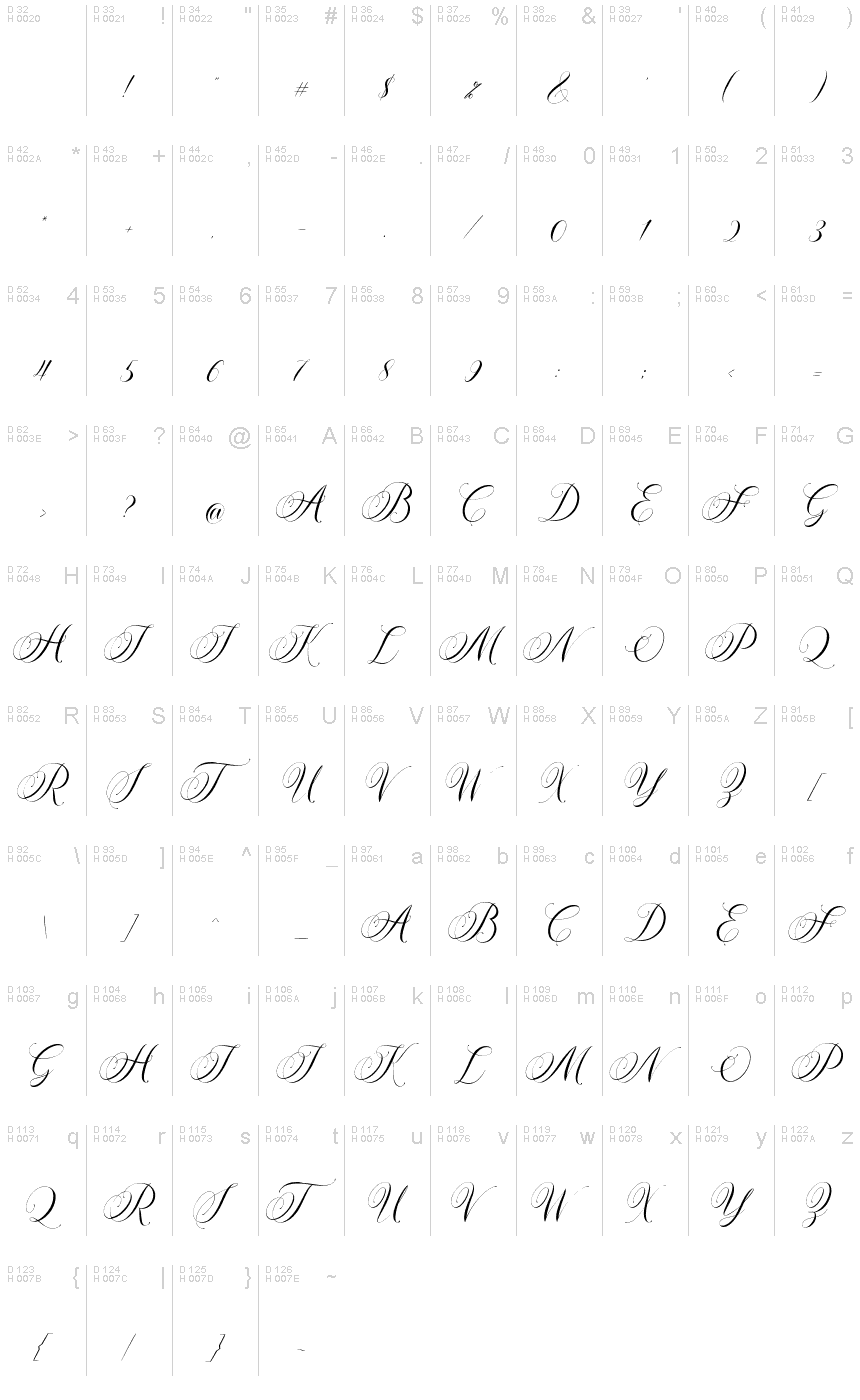
AURA LUXESS Calligraphy
AURA LUXESS Calligraphy is a stunning semi-light calligraphy font designed by ToniStudio. Its elegant and flowing strokes make it perfect for wedding invitations, greeting cards, logos, and branding projects that require a touch of sophistication. This font boasts luxurious curves and graceful serifs that are sure to elevate any design project. With its unique style, AURA LUXESS Calligraphy is perfect for adding an air of elegance to your designs. So if you're looking to create memorable designs that leave a lasting impression, this semi-light calligraphy font is the ideal choice!